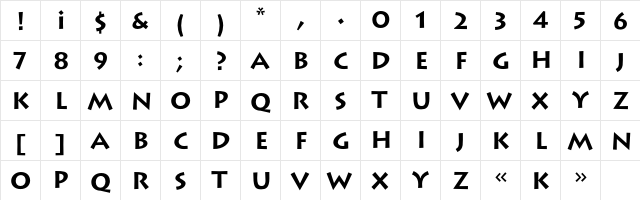
LithosC Bold Font Preview
LithosC Bold
Design Context for LithosC Typeface
LithosC offers clean, dependable letterforms without strong stylistic allegiance, making it a practical choice for designers who need flexibility. The heavy weight commands attention and anchors typographic hierarchies.